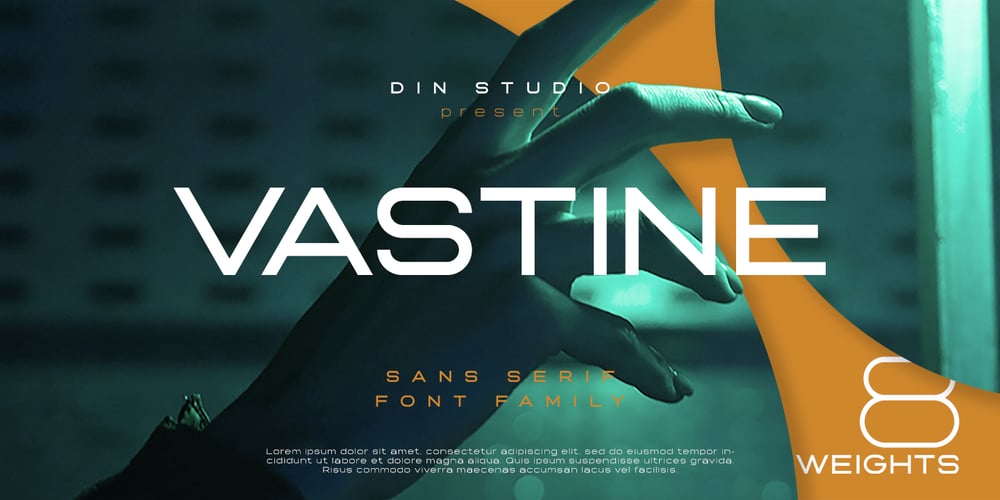
Vastine Font Family was designed by Donis Miftahudin and published by Din Studio. Vastine contains 8 styles and family package options. Hello, Everyone! Ready to make your branding spark? If you need to create a big, bold logo for your business, work on a poster for an event, or whatever your project may be-then this is the perfect font for you. Vastine-A Sans Serif Font FamilyIf we can give you many options then why not? Vastine is a package that will surprise you. With this family you will get many options to maximize your designs with stylish fonts. Vastine is made in uppercase and lowercase that easy on the eyes and nice to look while it’s also easy to read. This font designed to bring your branding to life and add a touch of modernity, fun and style. Perfect to create amazing headings, logos, menus, social media graphics, and many more. Features: Multilingual Support PUA Encoded Numerals and Punctuation Thank you for downloading premium fonts from Din Studio